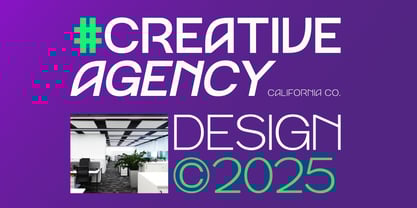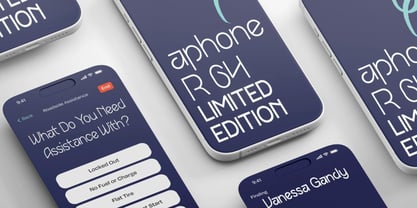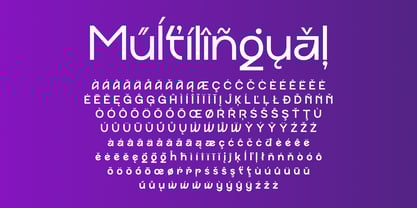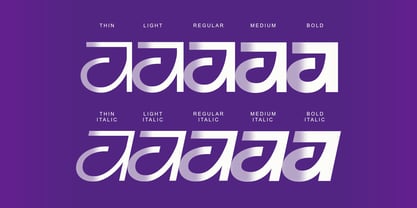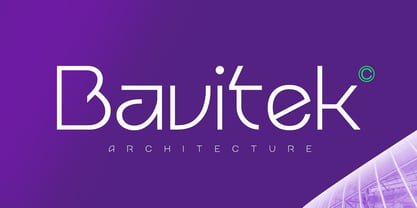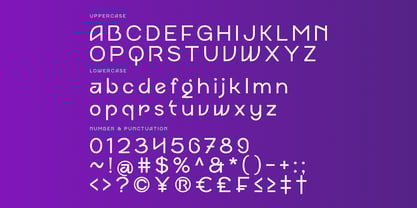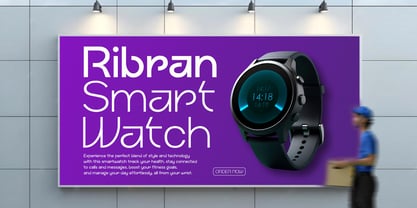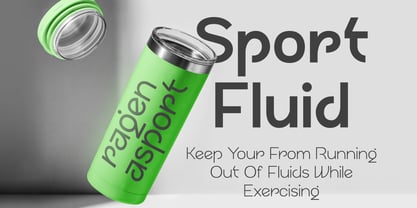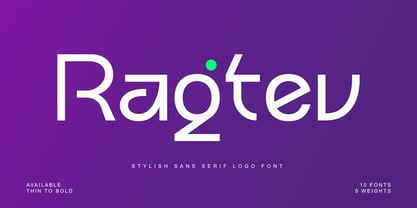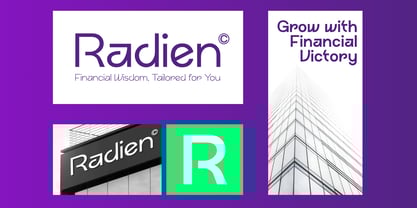
Ragtev
The Ragtev Font Family was designed by Saiful Anwar and published by Sealoung. Ragtev contains 10 styles and family package options. More about this family
Ragtev – Stylish Sans Serif Logo Font
Ragtev is a modern font crafted for designers who want elegance and versatility in their work. With clean lines and balanced shapes, it delivers a stylish and professional look that adapts perfectly to logos, branding, packaging, and editorial layouts.
Offering a complete range of styles from Thin to Bold, Ragtev gives you the flexibility to create anything from minimal, lightweight designs to strong, eye-catching visuals. Its sleek geometry and refined proportions give Ragtev a timeless character, making it an excellent choice for contemporary brands, creative studios, and professionals aiming for a strong visual identity. From subtle headlines to sophisticated logos, Ragtev provides the tools you need to bring your ideas to life.
Features:
• Stylish sans serif design with a modern appeal
• Full weight range from Thin to Bold
• Perfect for logos, branding, packaging, and editorial use
• Includes uppercase, lowercase, numerals, and punctuation
• OpenType features for advanced typography
• Multilingual support for Afrikaans, Albanian, Asu, Basque, Bemba, Bena, Breton, Chiga, Cornish, Dutch, English, Estonian, Filipino, Finnish, Friulian, Galician, German, Gusii, Indonesian, Irish, Italian, Kabuverdianu, Kalenjin, Kinyarwanda, Luo, Luxembourgish, Luyia, Machame, Makhuwa-Meetto, Makonde, Malagasy, Manx, Morisyen, North Ndebele, Nyankole, Oromo, Portuguese, Quechua, Romansh, Rombo, Rundi, Rwa, Samburu, Sango, Sangu, Scottish Gaelic, Sena, Shambala, Shona, Soga, Somali, Spanish, Swahili, Swedish, Swiss, and more.
Elevate your design with Ragtev – the stylish sans serif logo font built to make your brand unforgettable.